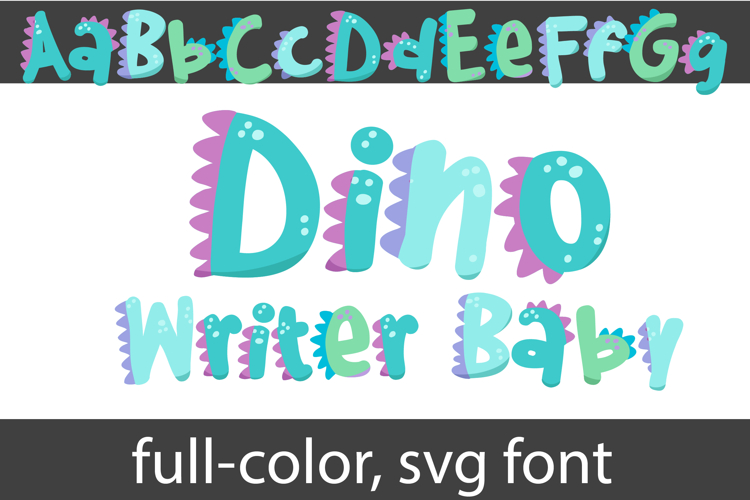
Dino Writer Baby Color Font
This full-color, pastel-colored font features a dinosaur scales and spots. There is an alt case of each letter with a different color combination.